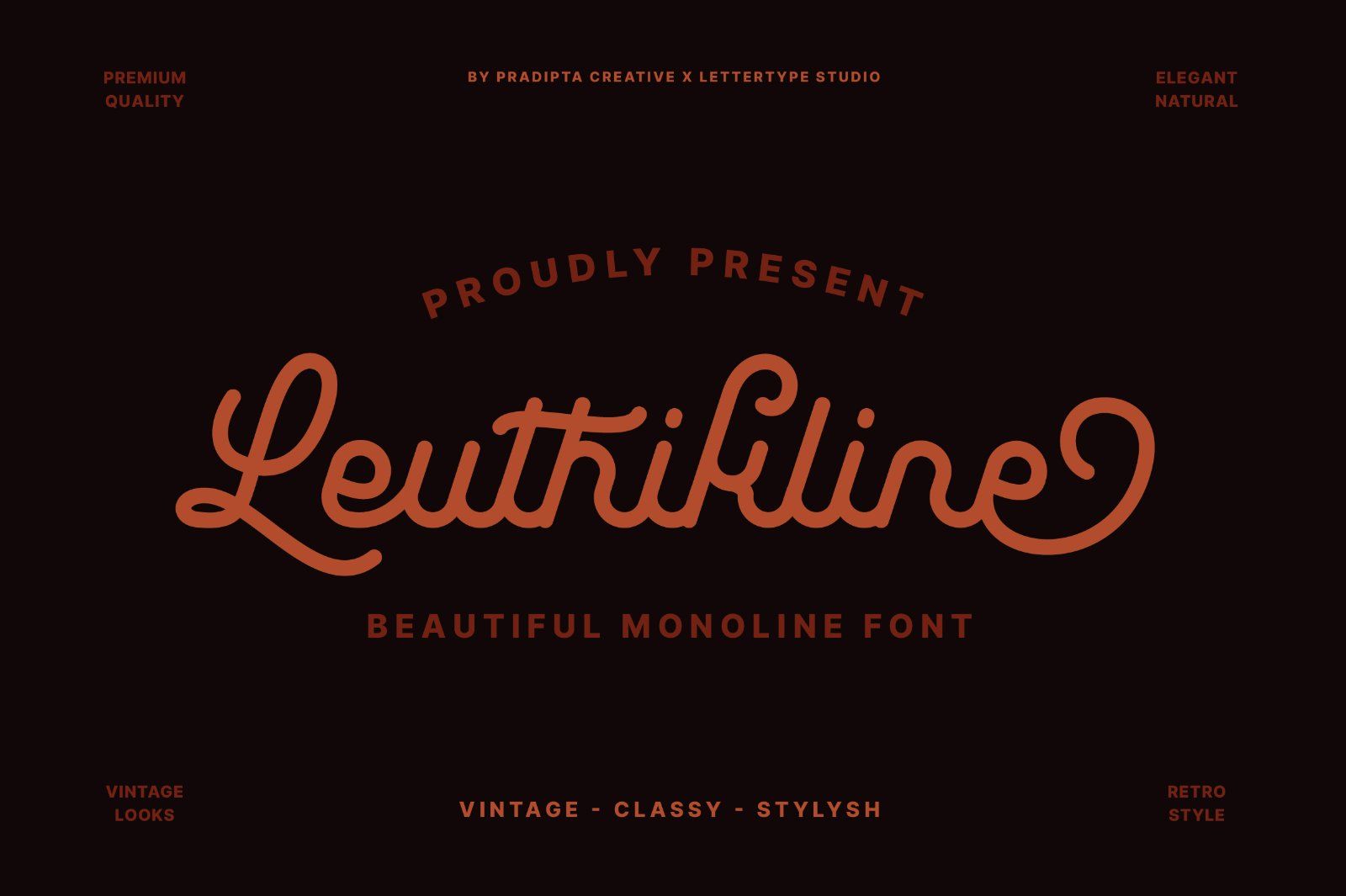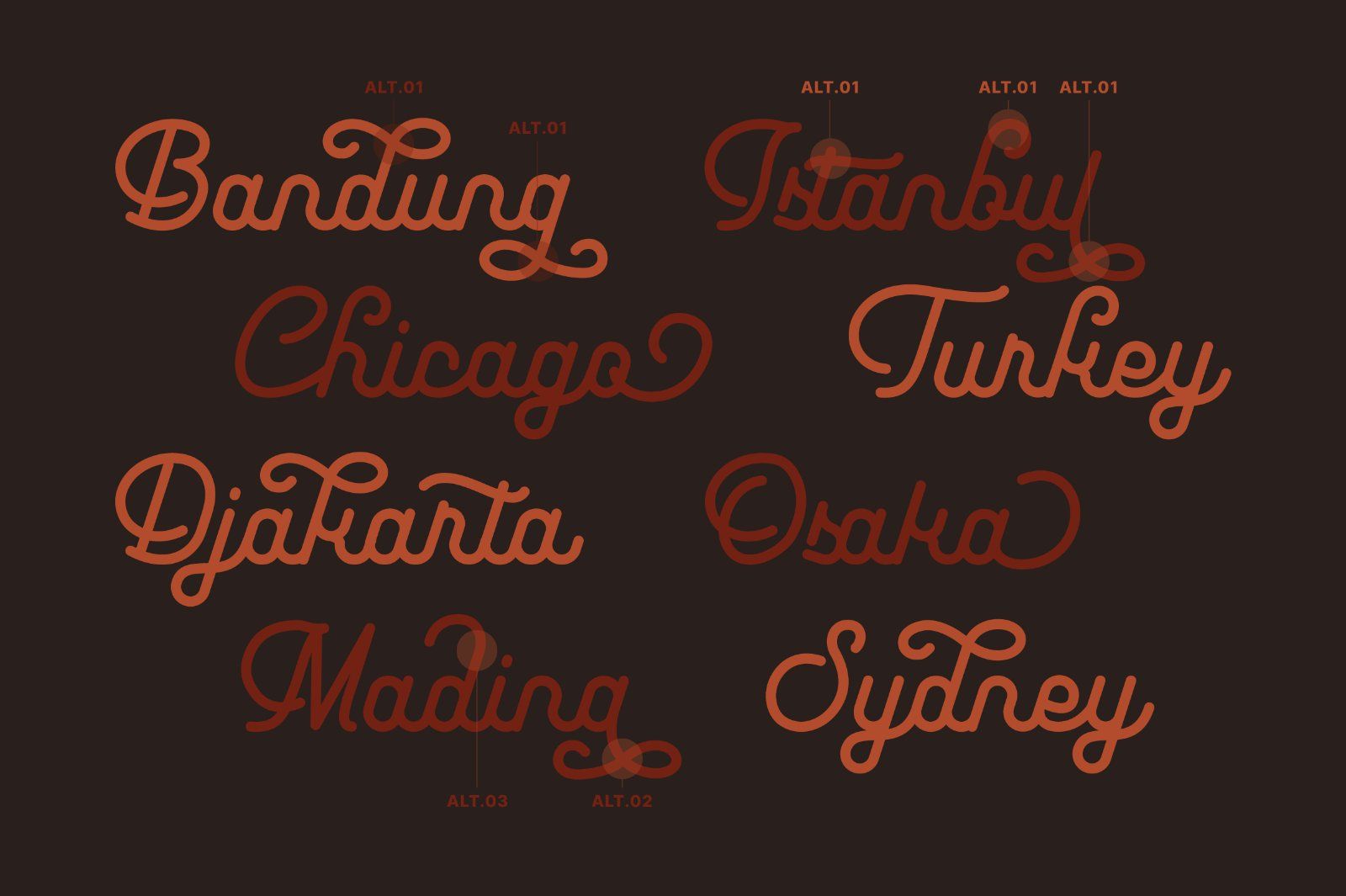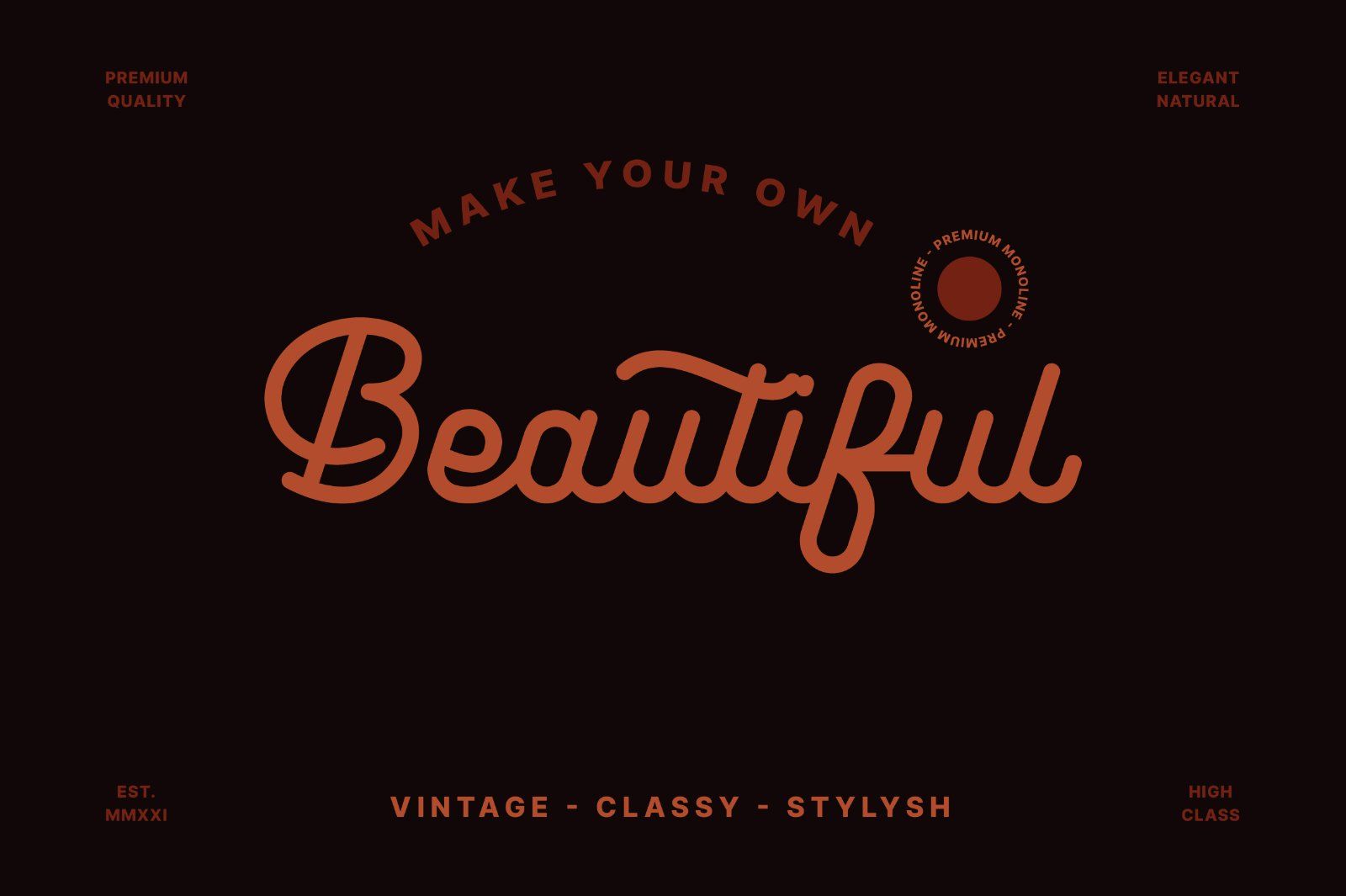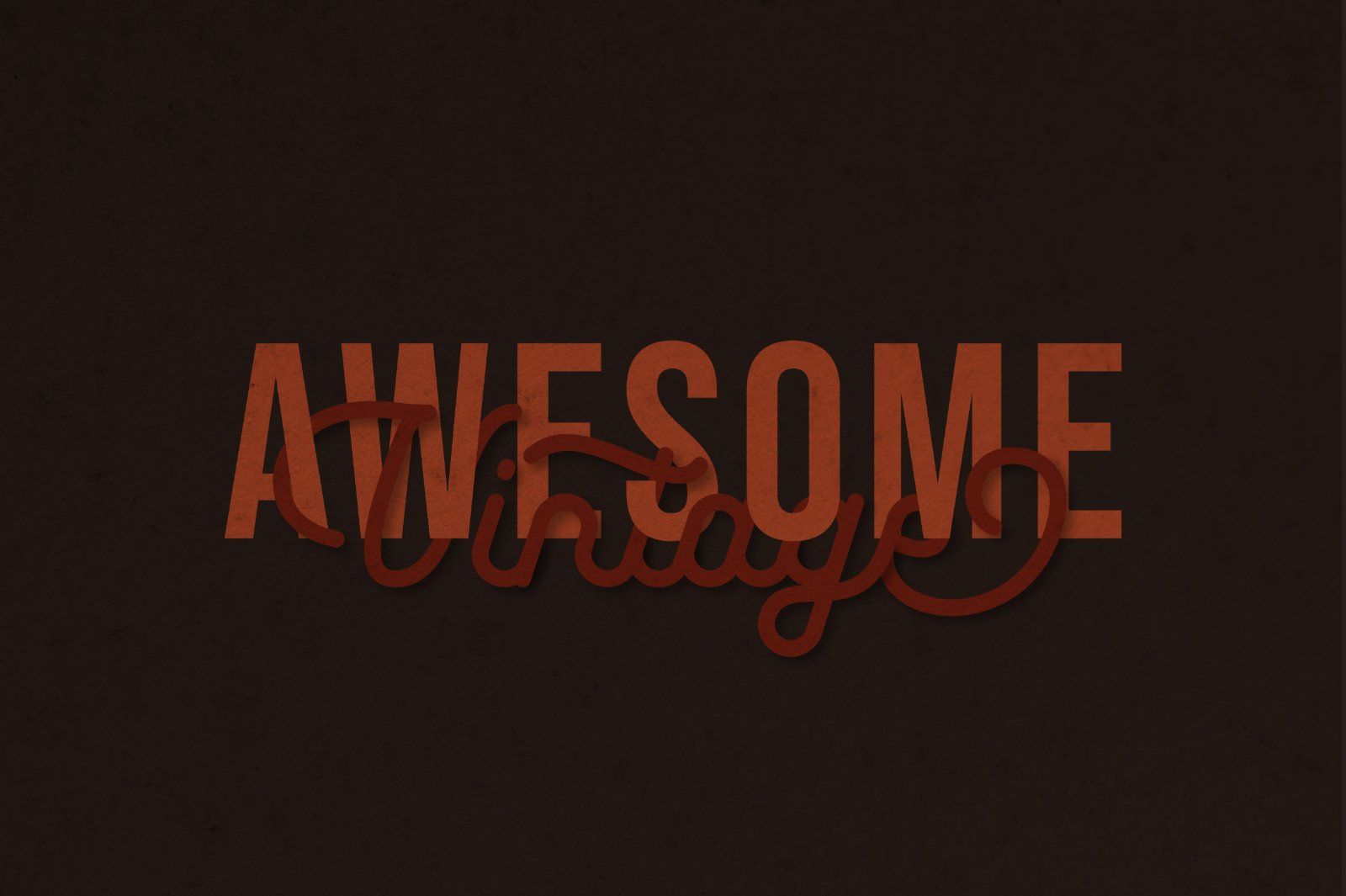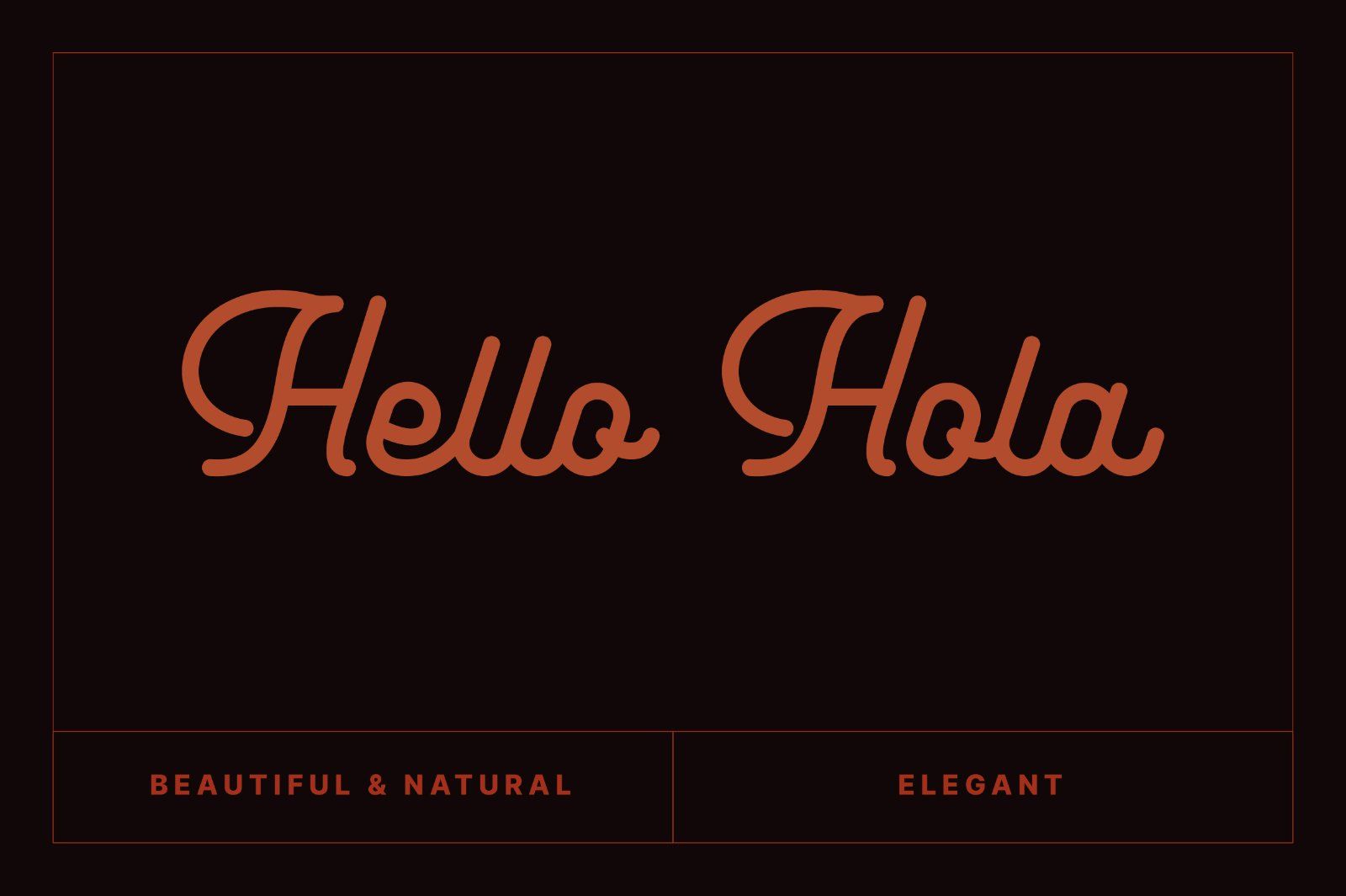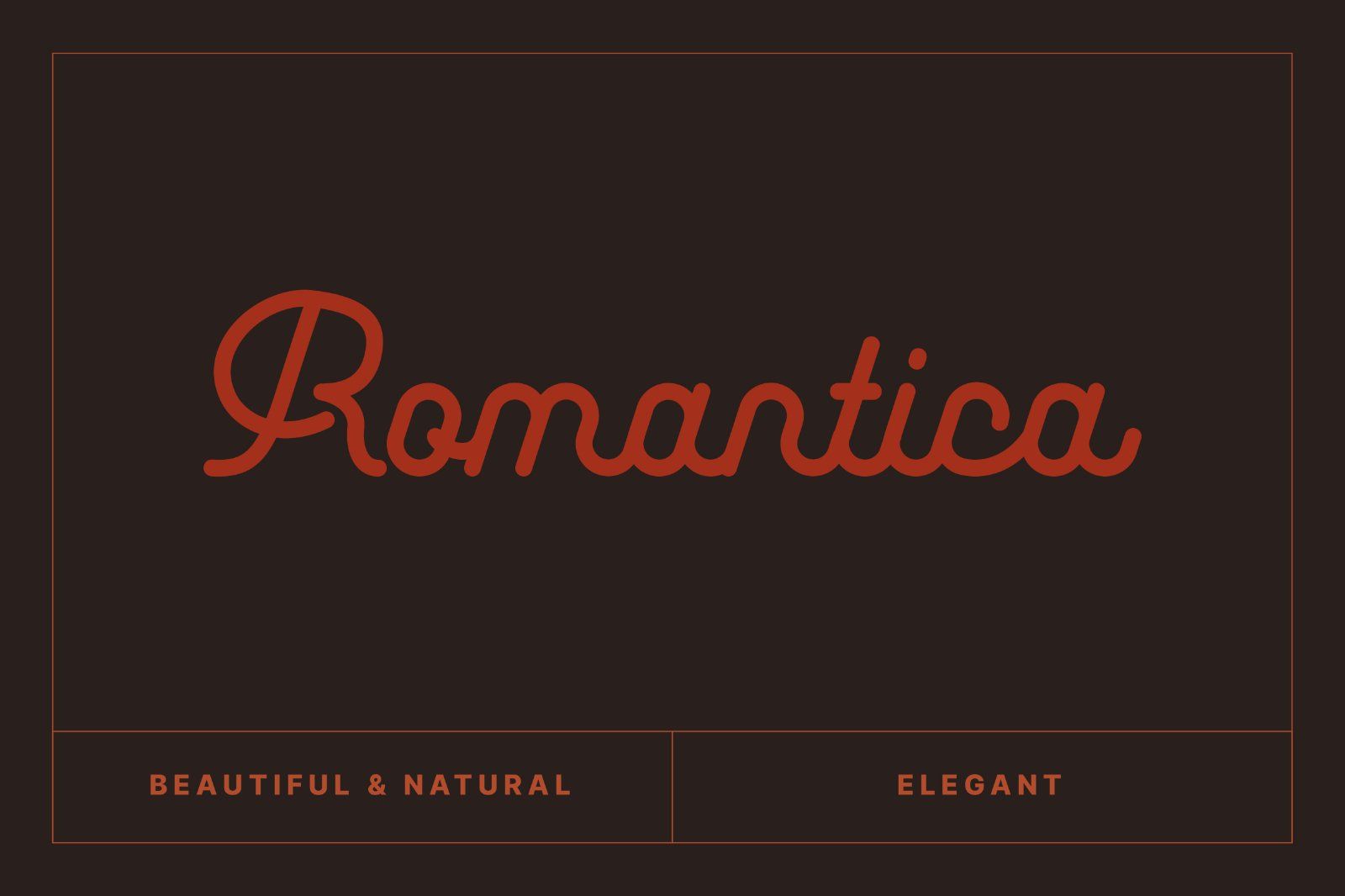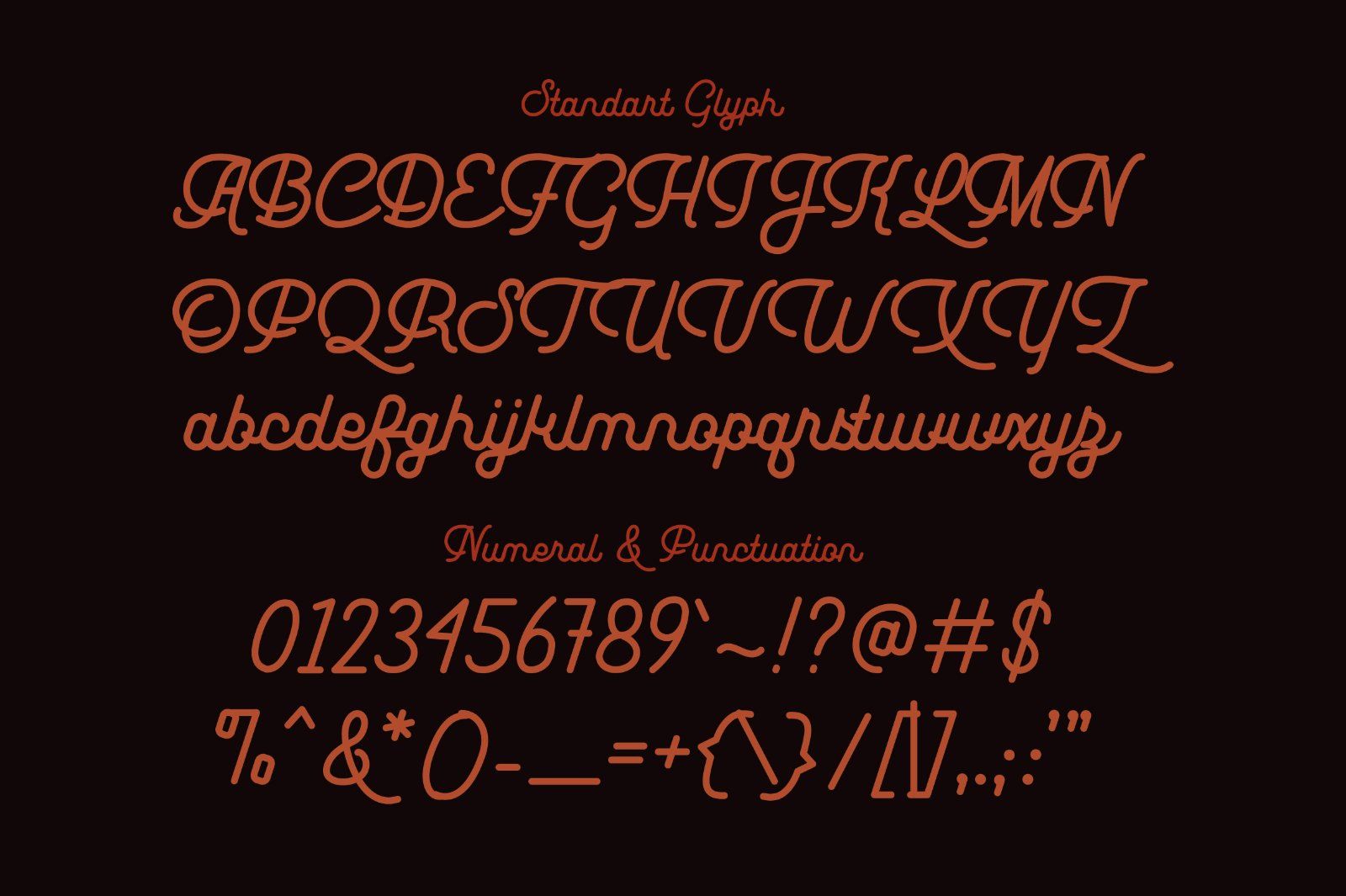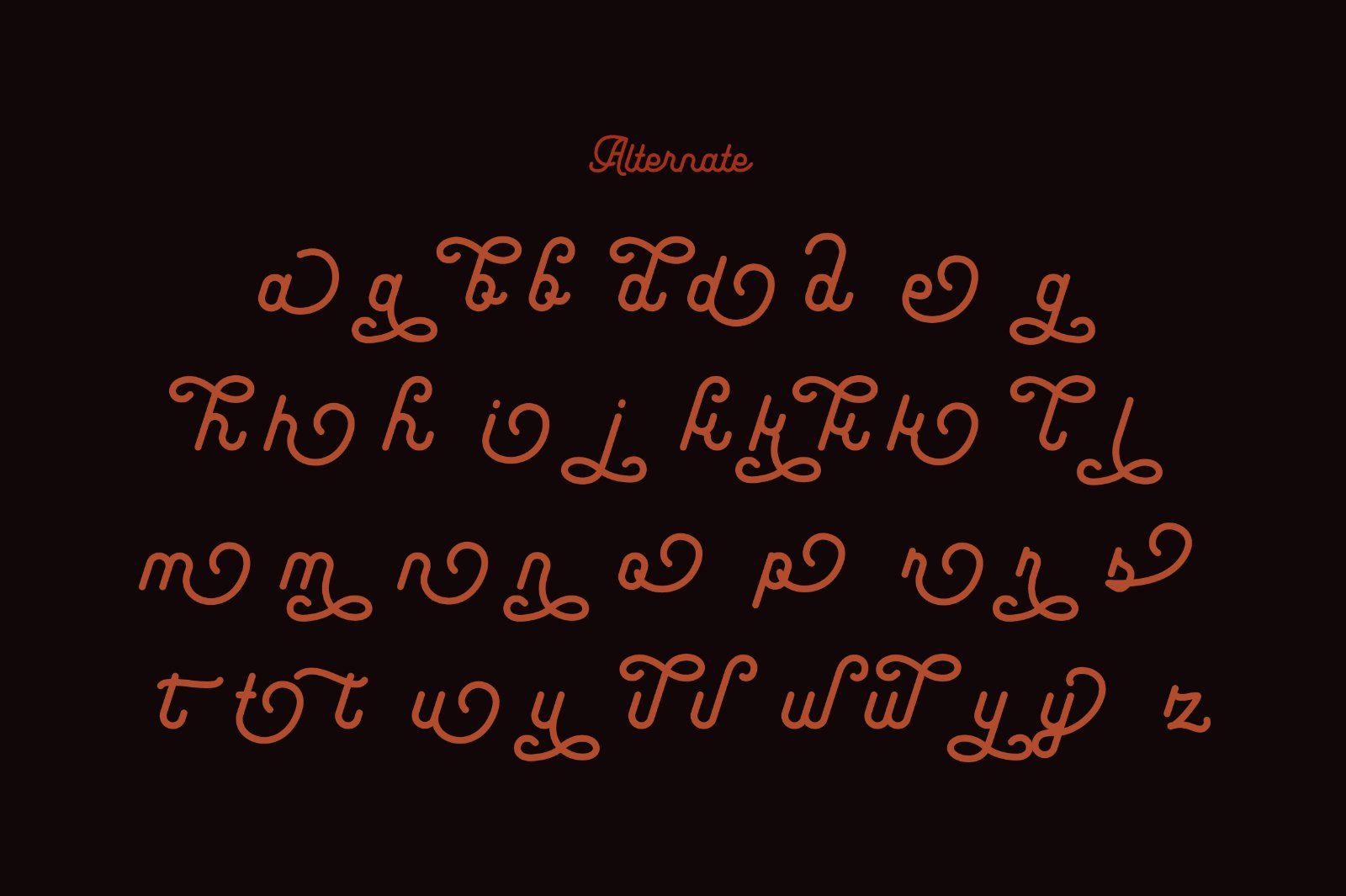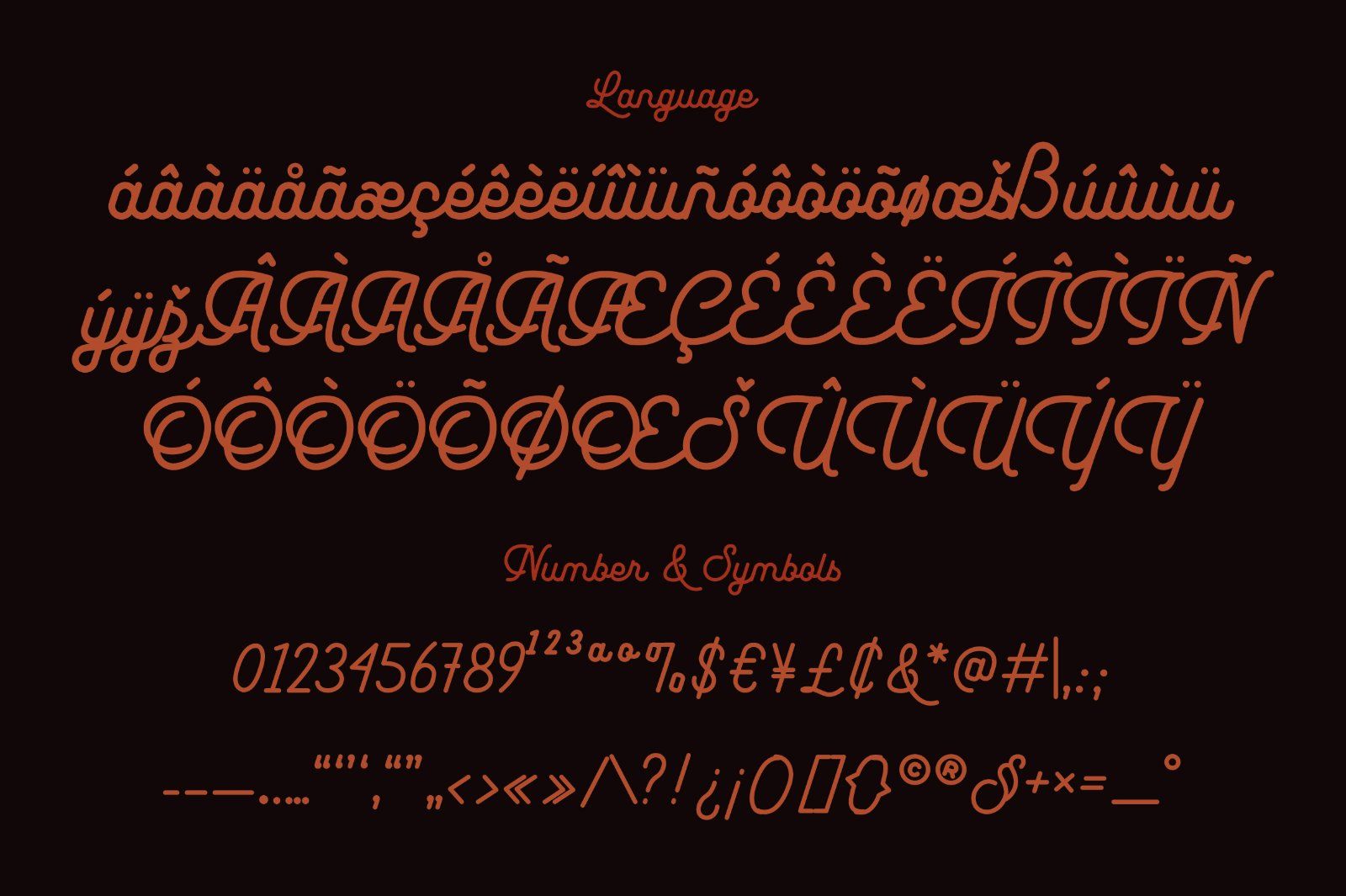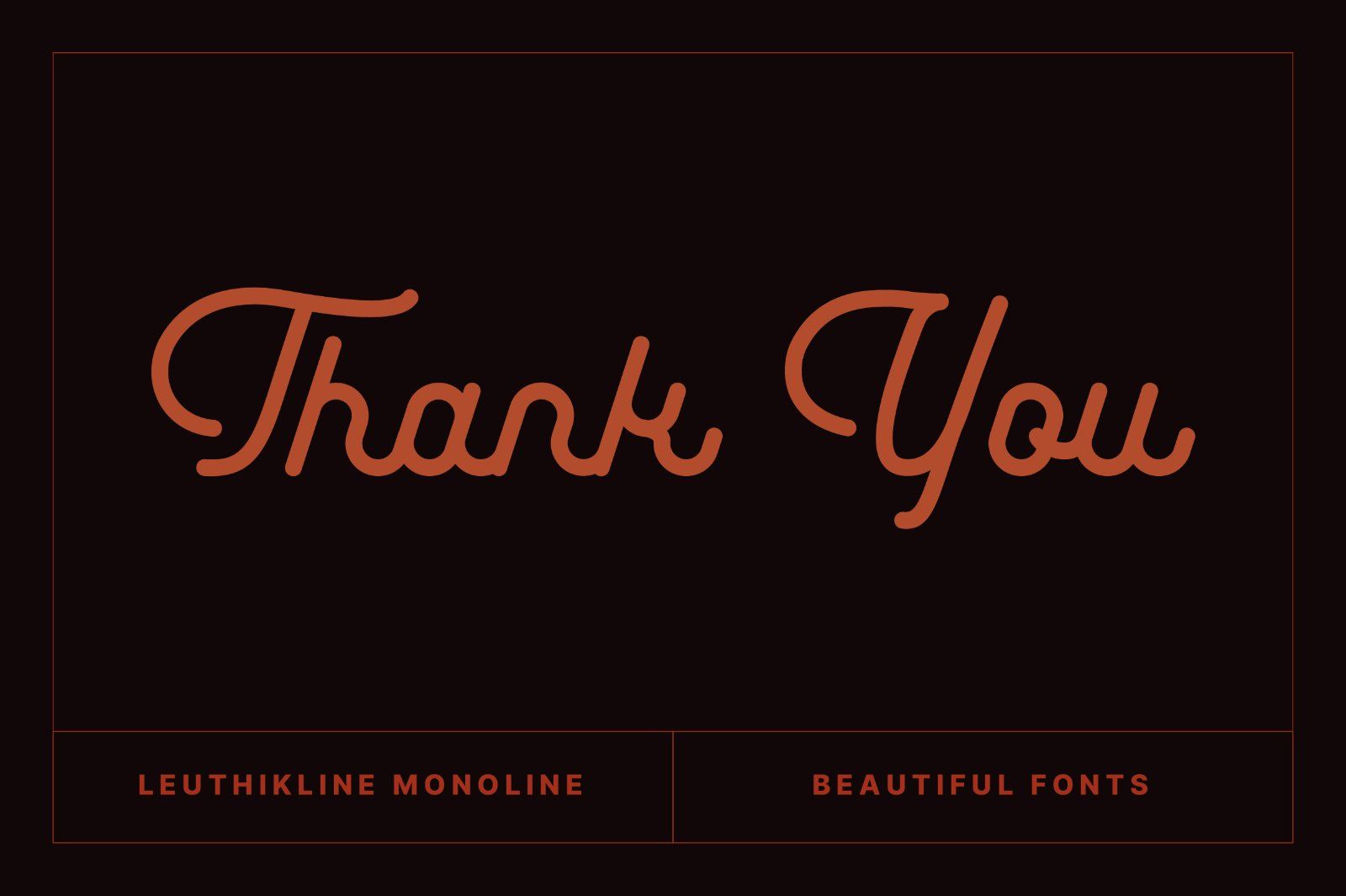
Leuthikline Script is a beautiful monoline font, perfect for logo design, branding, clothing design, signage, posters, wedding invitations and so much more! My goal in creating this font was to be an easy-to-read script font that would serve a variety of purposes and help your project to be more perfect and beautiful. Don't Miss Out!
Leuthikline Script comes with:
• Lowercase and Uppercase
• Stylistic Alternates
• Accented characters
• Multiple Languages Supported